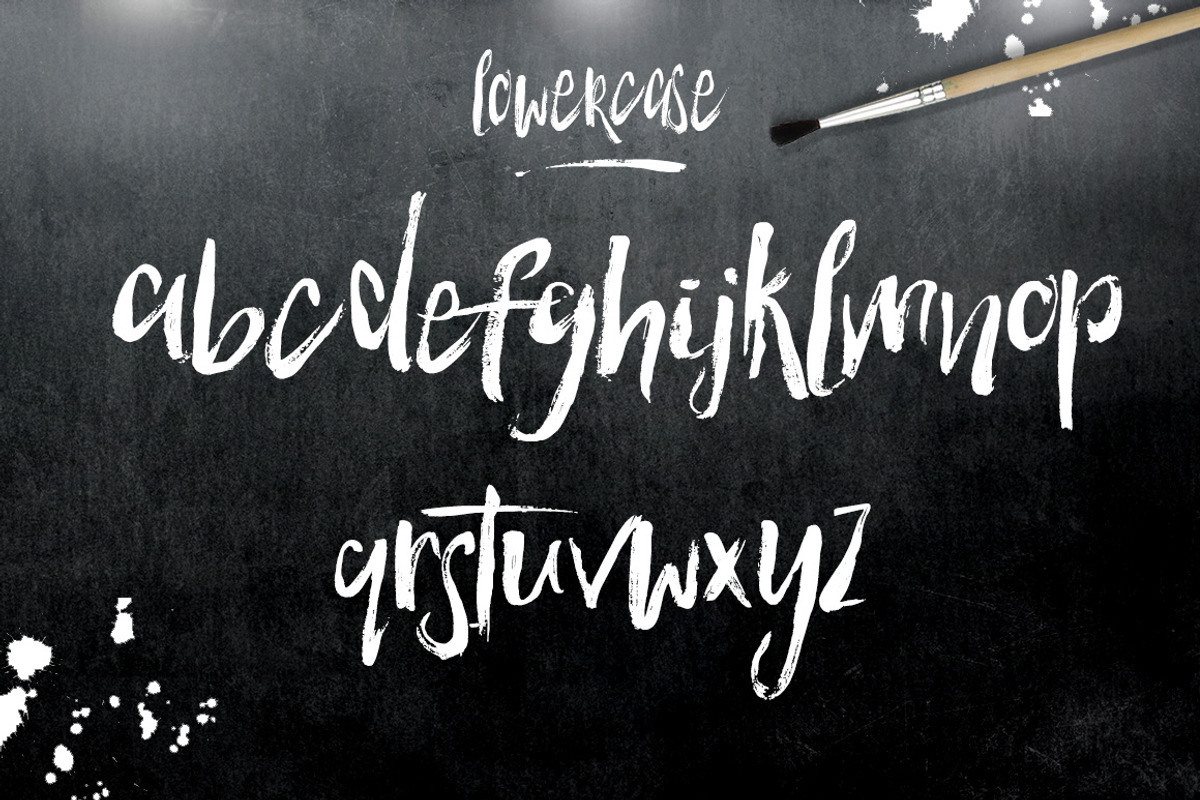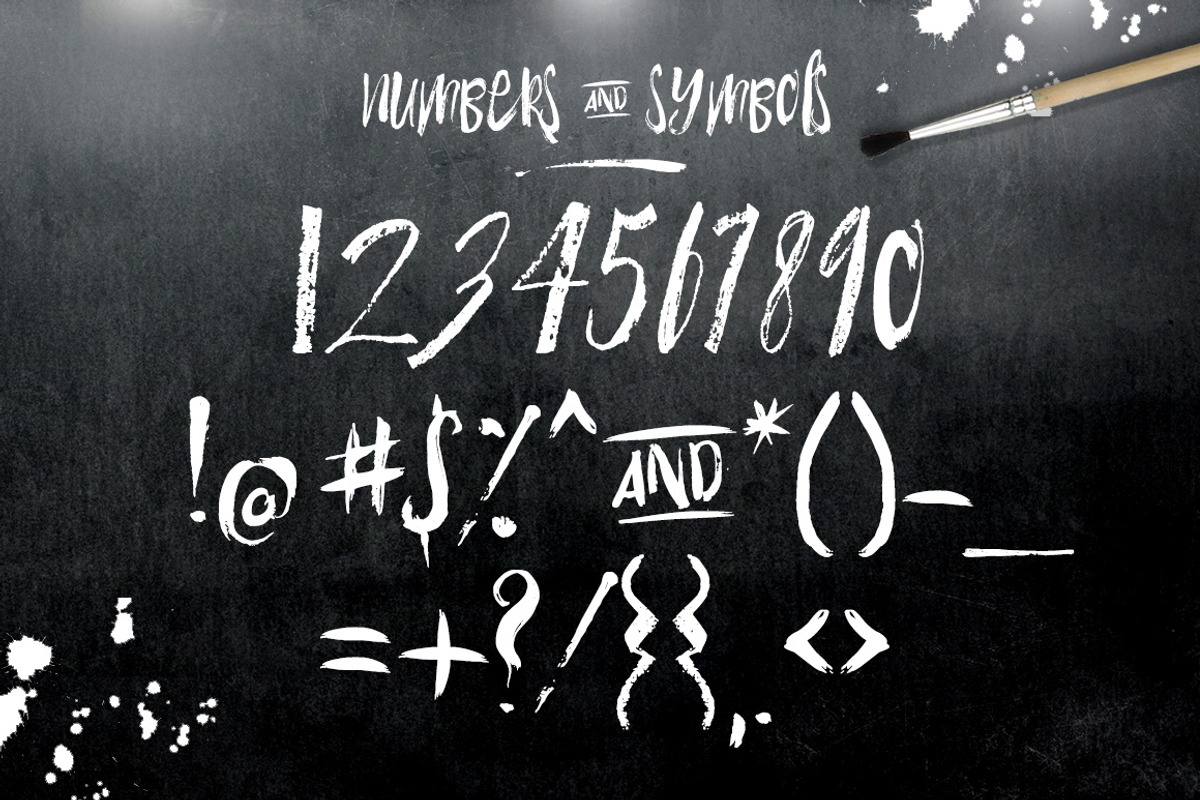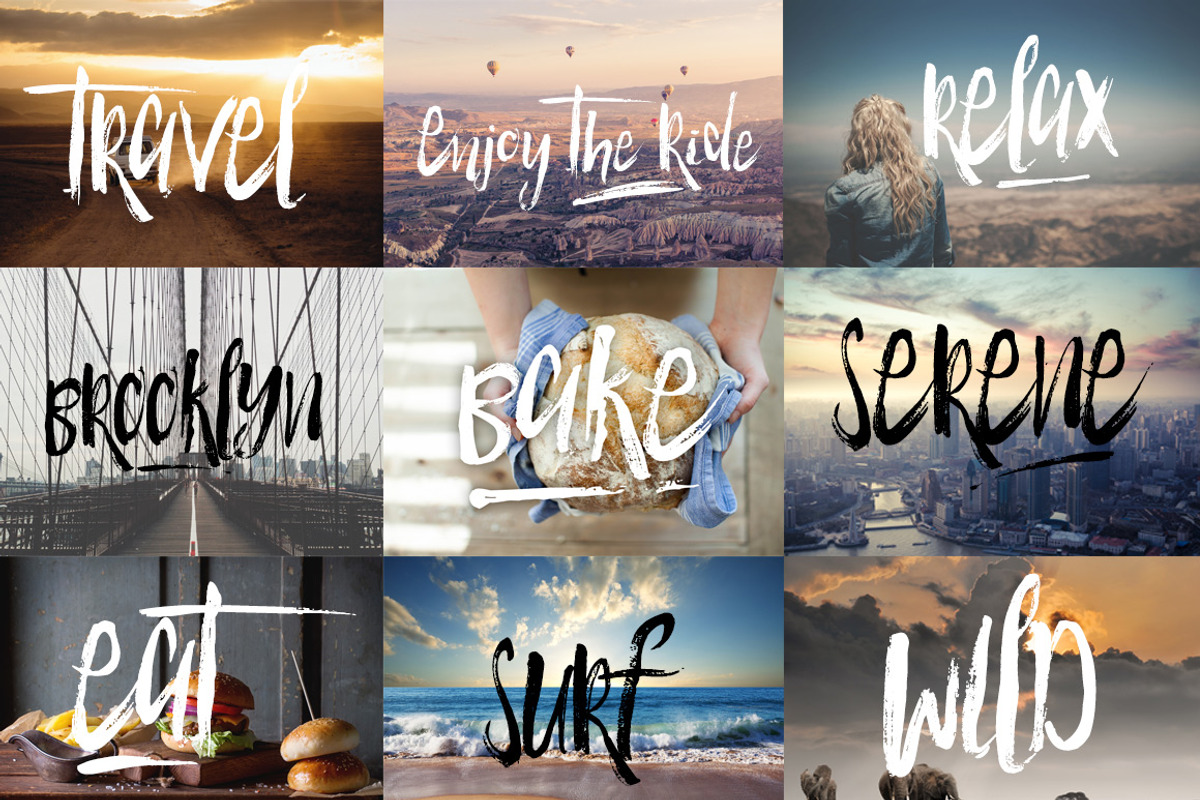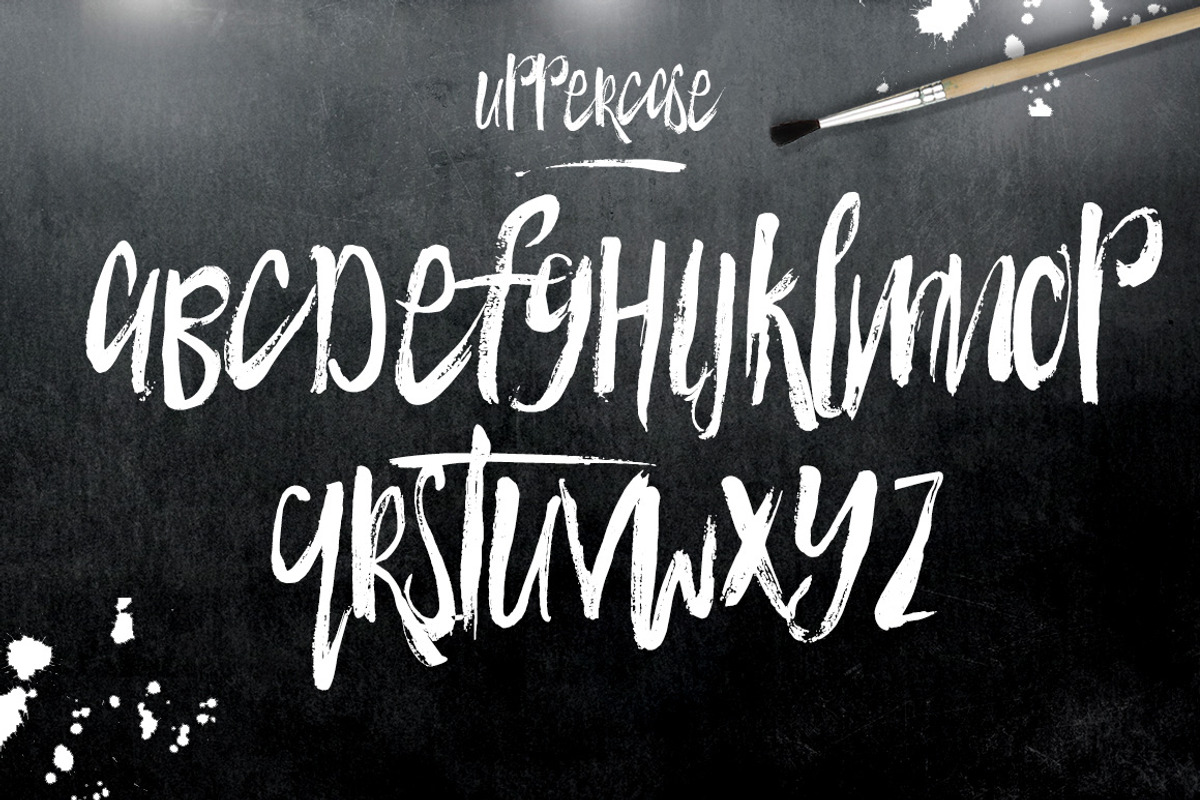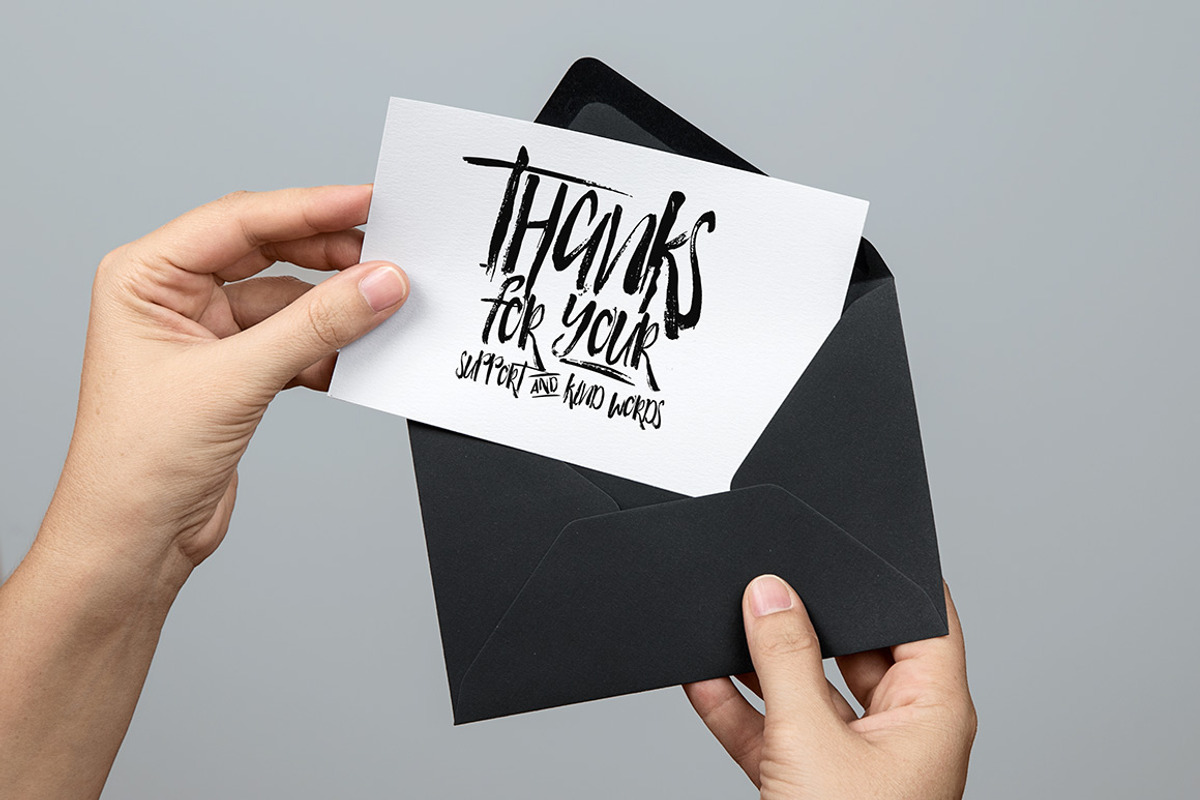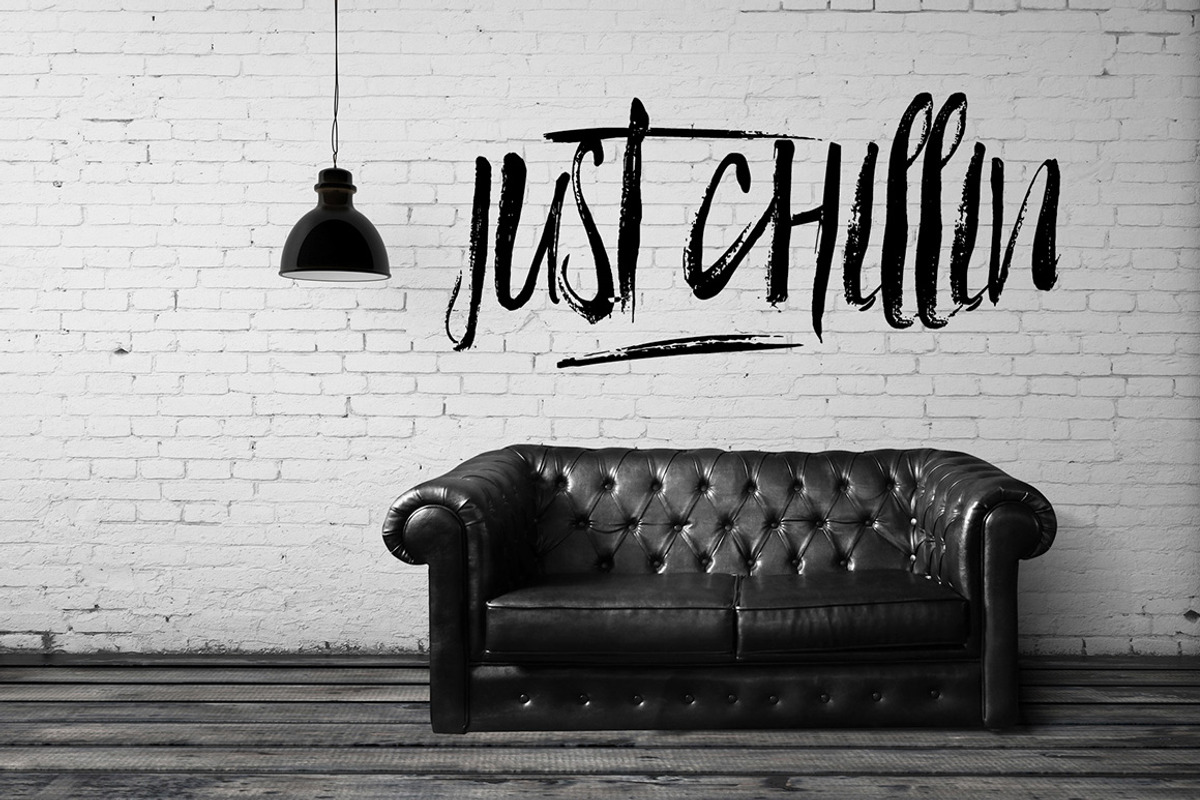
Torquay Hotel Brush Font
Torquay Hotel Brush Font by Creativeqube Design is a font selected for branding, posters, packaging, typography.
Why Torquay Hotel Brush Font is worth a look
Torquay Hotel Brush Font by Creativeqube Design fits naturally into Branding, posters, packaging, typography.